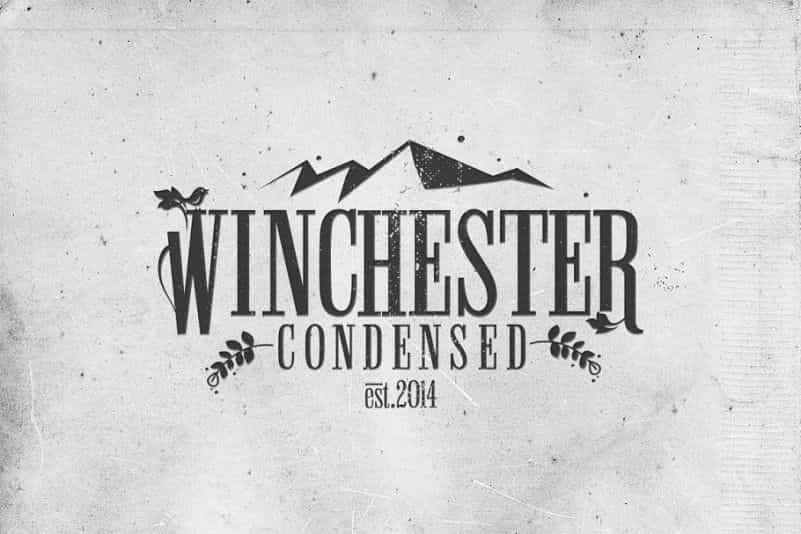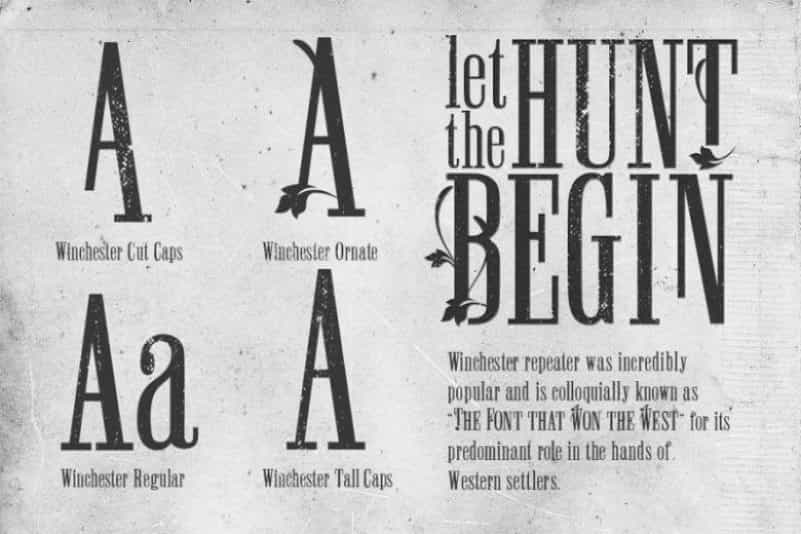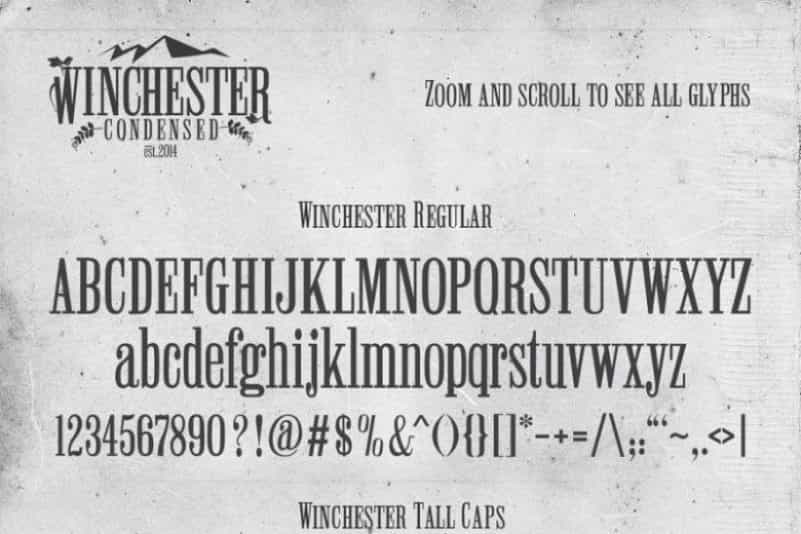
Introducing Winchester Font! This font is designed to mimic typography from early ages and is best suited for logos and insignia designs. It is sports, soft geometric shapes, wedge serifs, and sharply angled terminals. Winchester Condensed font is rather unique, but at the same time it can be used almost anywhere: from the strict Business Letter to the fun Children’s Birthday Invitation or the chunky Sports Sponsorship.